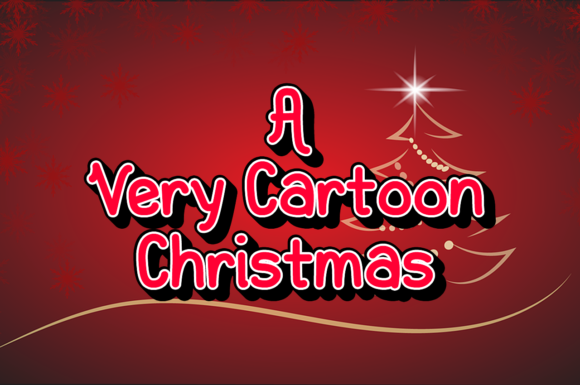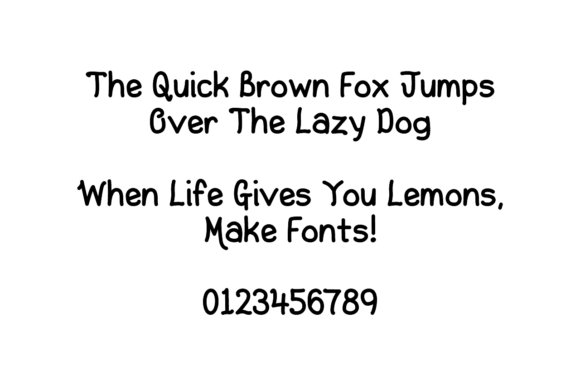
A Very Cartoon Christmas Font
About A Very Cartoon Christmas Font
“A Very Cartoon Christmas” is a delightful handwritten cartoon font specifically crafted to capture the joyful and childlike wonder associated with the most magical day of the year – Christmas! Tailored for use in winter advertisements and designs, this font adds a whimsical and playful touch to your creative projects, bringing the festive spirit to life.
The charm of “A Very Cartoon Christmas” lies in its handwritten style, which infuses a sense of warmth and nostalgia into your text. The cartoonish elements enhance the overall playful vibe, making it a perfect choice for conveying the joy and excitement of the holiday season.
This font is designed to evoke the carefree and imaginative spirit of childhood, making it ideal for a wide range of Christmas-themed designs. Whether you’re working on festive advertisements, greeting cards, social media posts, or any other winter-inspired project, “A Very Cartoon Christmas” adds a touch of lightheartedness that resonates with the holiday atmosphere.
The versatility of this font allows you to experiment with various creative applications, embracing the festive and cheerful nature of Christmas. Use it to create eye-catching headlines, playful logos, or any design element that calls for a cartoonish and festive appearance.
In summary, “A Very Cartoon Christmas” is not just a font; it’s a festive tool that brings the joy and innocence of Christmas to your designs. Its handwritten cartoon style is perfect for conveying the magical spirit of the season, making it a delightful addition to your winter-themed creative projects.